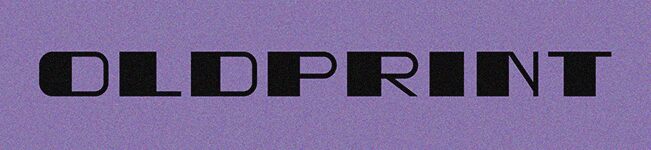
Oldprint Extravagant Regular
Oldprint Extravagant font by Vladimir Nikolic is a display typeface with an old-school style. The font consists of a bold weight and expanded width letters for an extravagant appearance that proves to captivate both at first and last glimpse. Although it can be read in small sizes, we believe this one should be used at larger sizes.